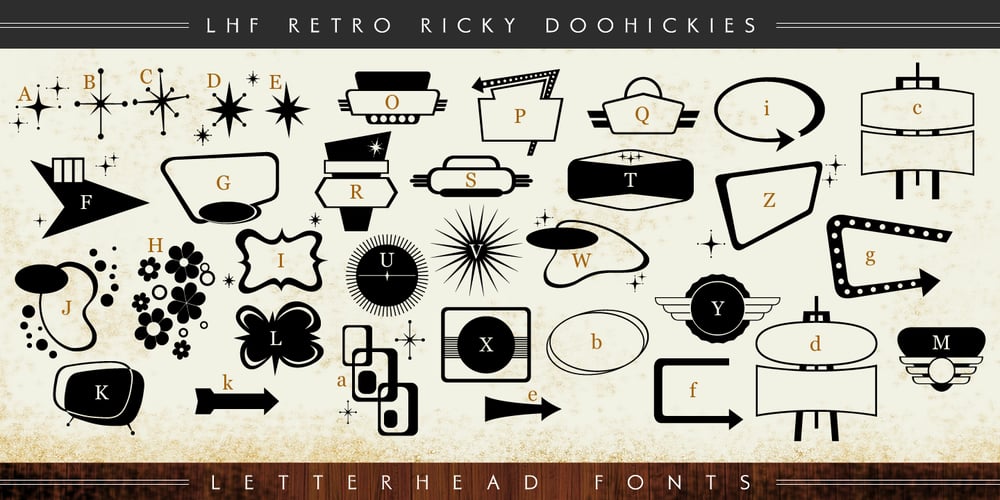
LHF Retro Ricky Doohickies Font Family was designed by Denise Bayers and published by Letterhead Fonts. LHF Retro Ricky Doohickies contains 1 styles and family package options. LHF Retro Ricky transports you right into the groovy retro past. These 60’s-era Doohickies set includes over 85 panels and dingbats to enhance your designs. Save time recreating vintage logos and designs. Goes perfect with the LHF Retro Ricky Fonts, only available at Letterhead Fonts.